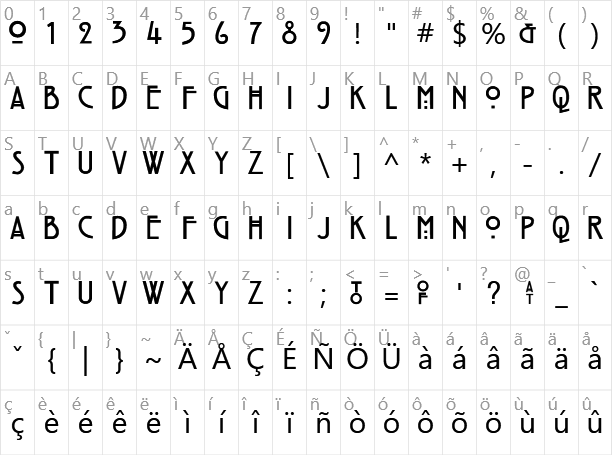
American Horror Story Font Dafont. Latest from the whatfontis forum. For an edgier version, try this one from font meme.
American horror story font from kelge fonts is a free typeface for personal use only, which is inspired by the ahs movie. The easiest way to identify fonts on. 1 point · 1 year ago.
I Don't Know The Actual Name, But It's The Font From Thriller.
American horror story font cricut. The classic charles rennie mackintosh font has been a massive seller over the years. American horror story font | dafont.com.
For an edgier version, try this one from font meme. Not the title logo, but the title cards in the episode and the credits. Believe it or not, you can download this famous show’s font for free thanks to kelge fonts.